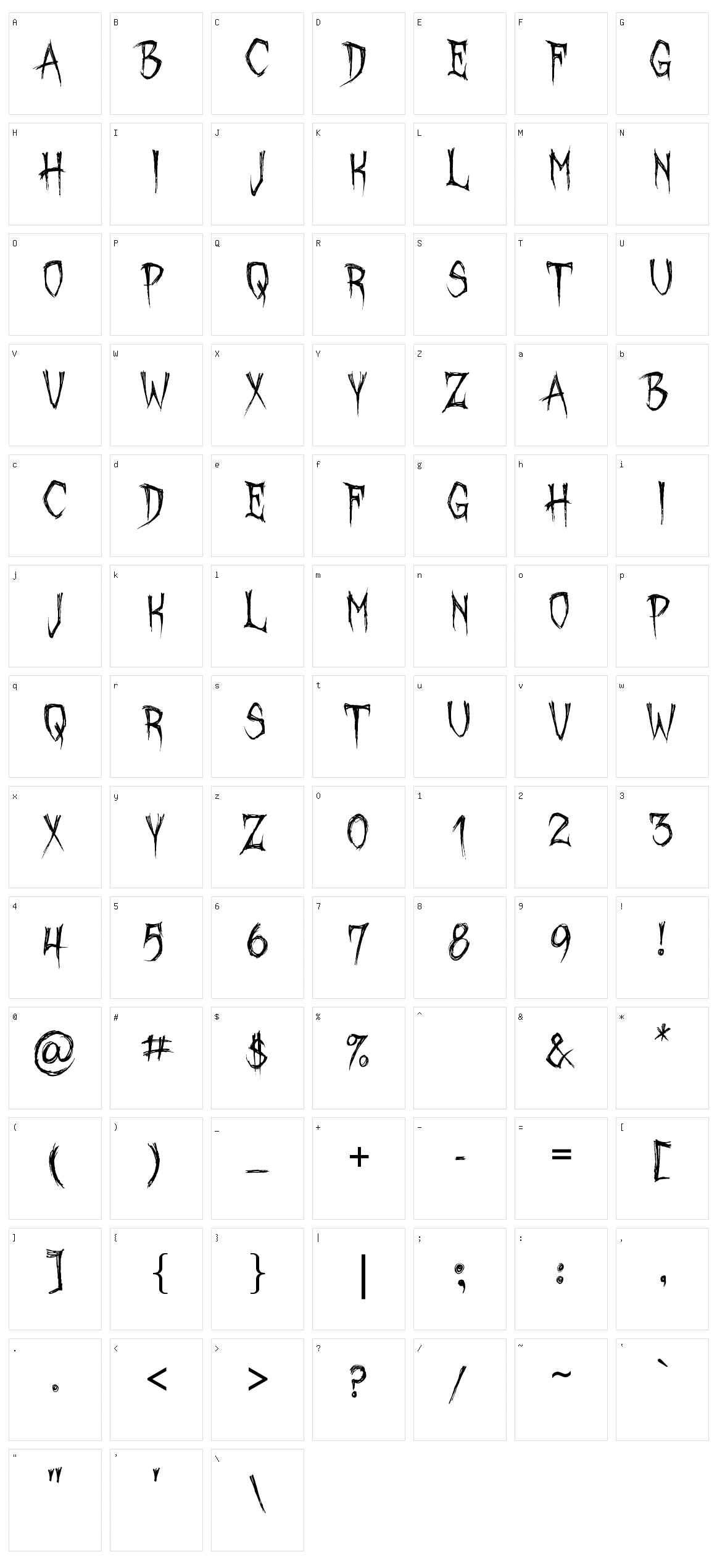
October Crow Font by Chad Savage
Created 2010, hand-lettered while watching The Crow on Devil's Night 2010. Turned into a PC font on Halloween, 2010.
This font is intended for specialty and graphic uses. It will look just awful if used in a paragraph format.